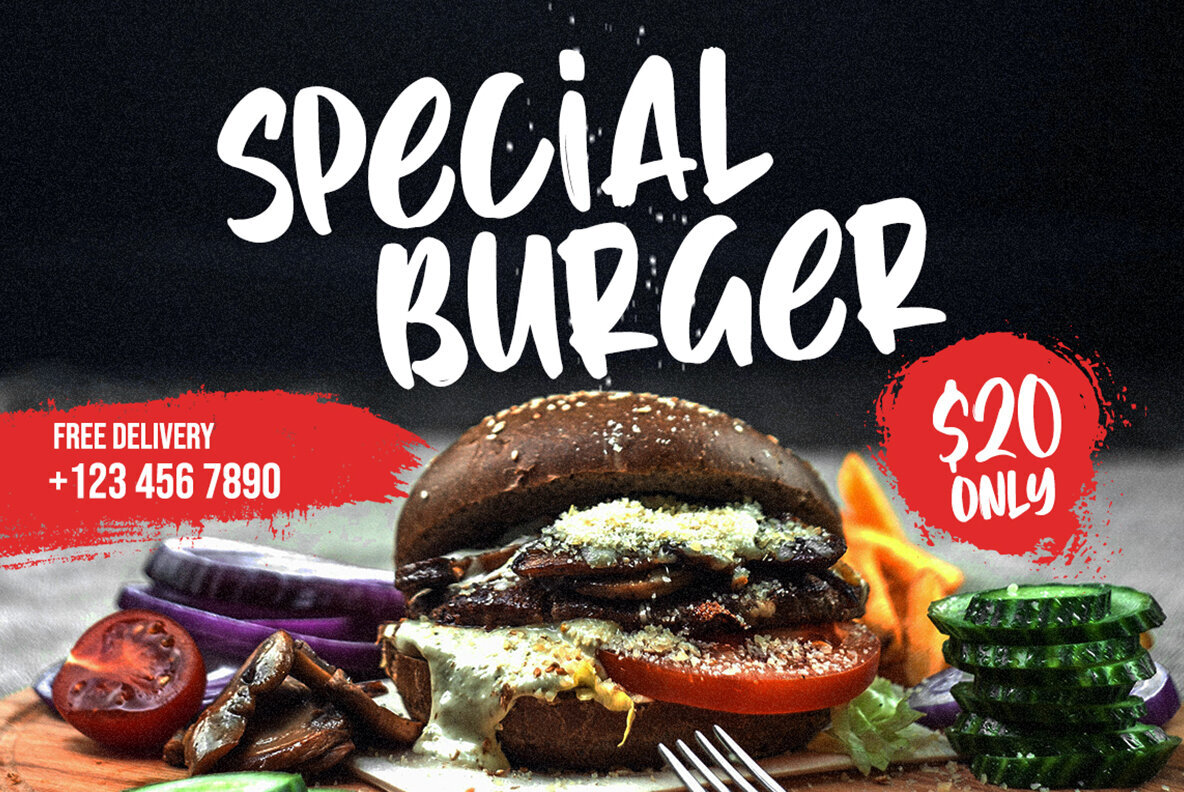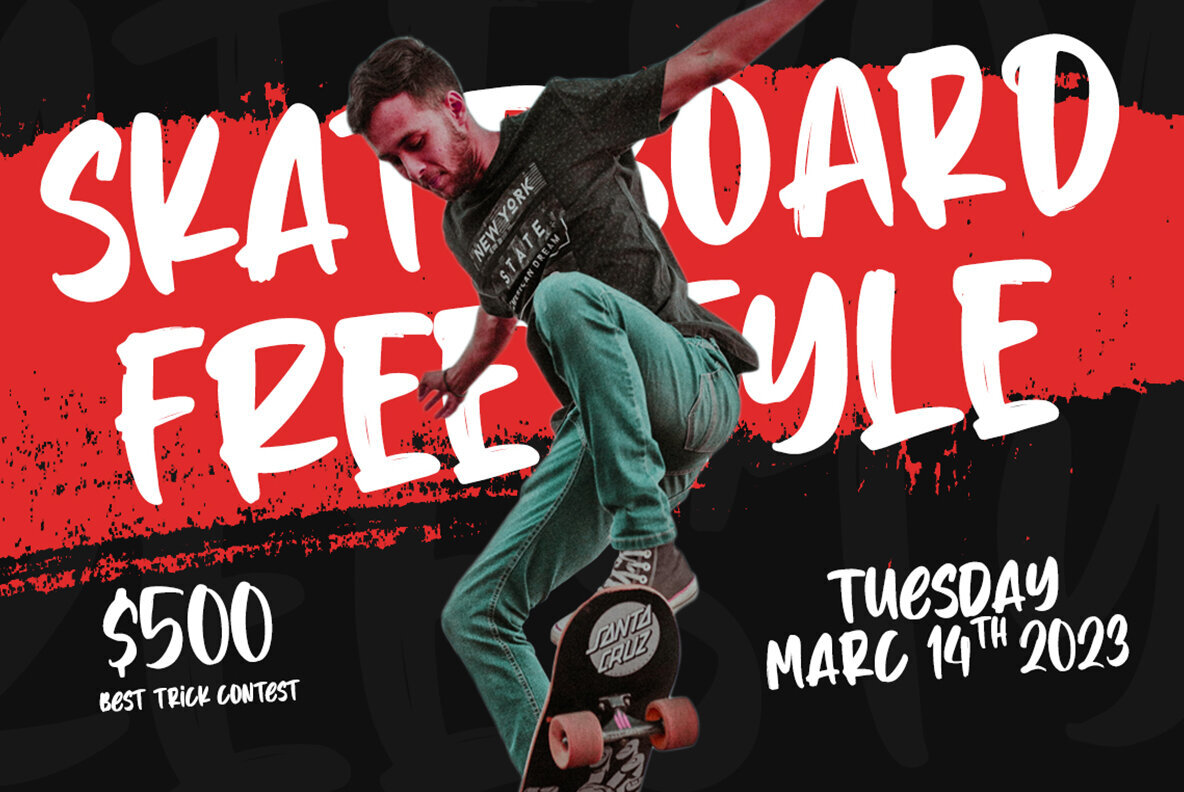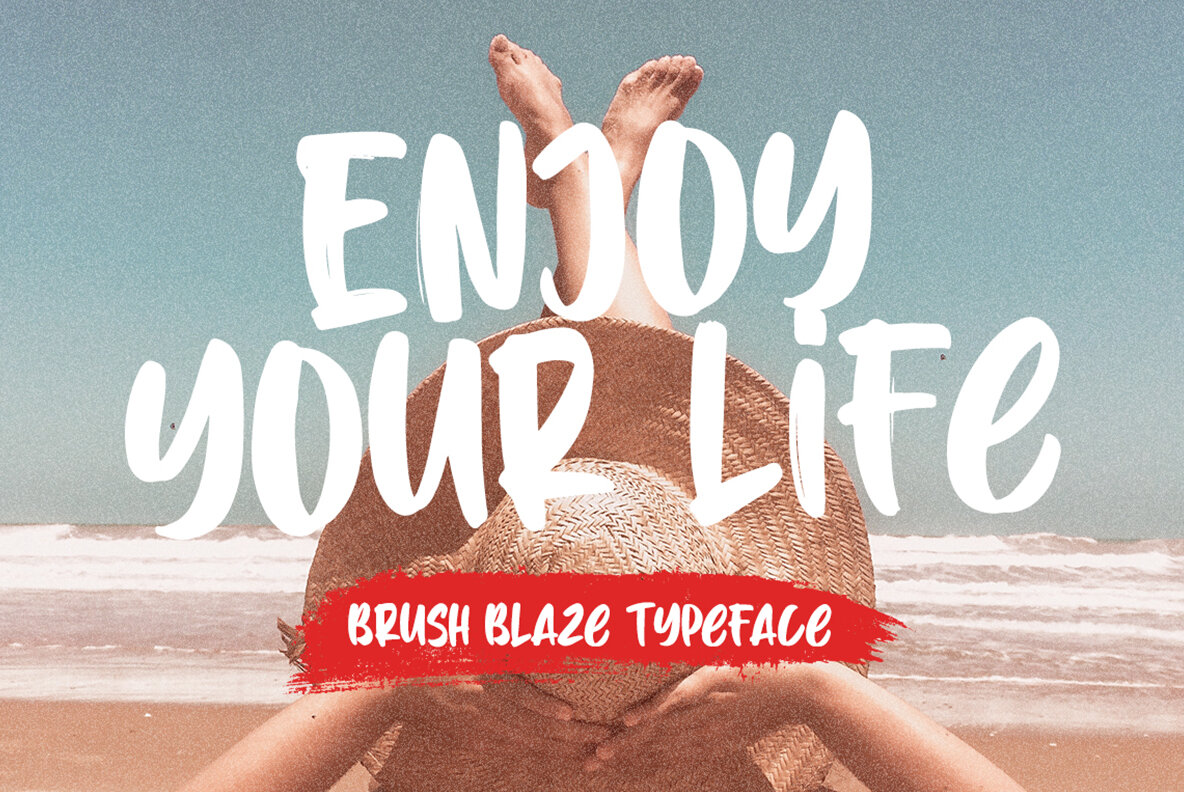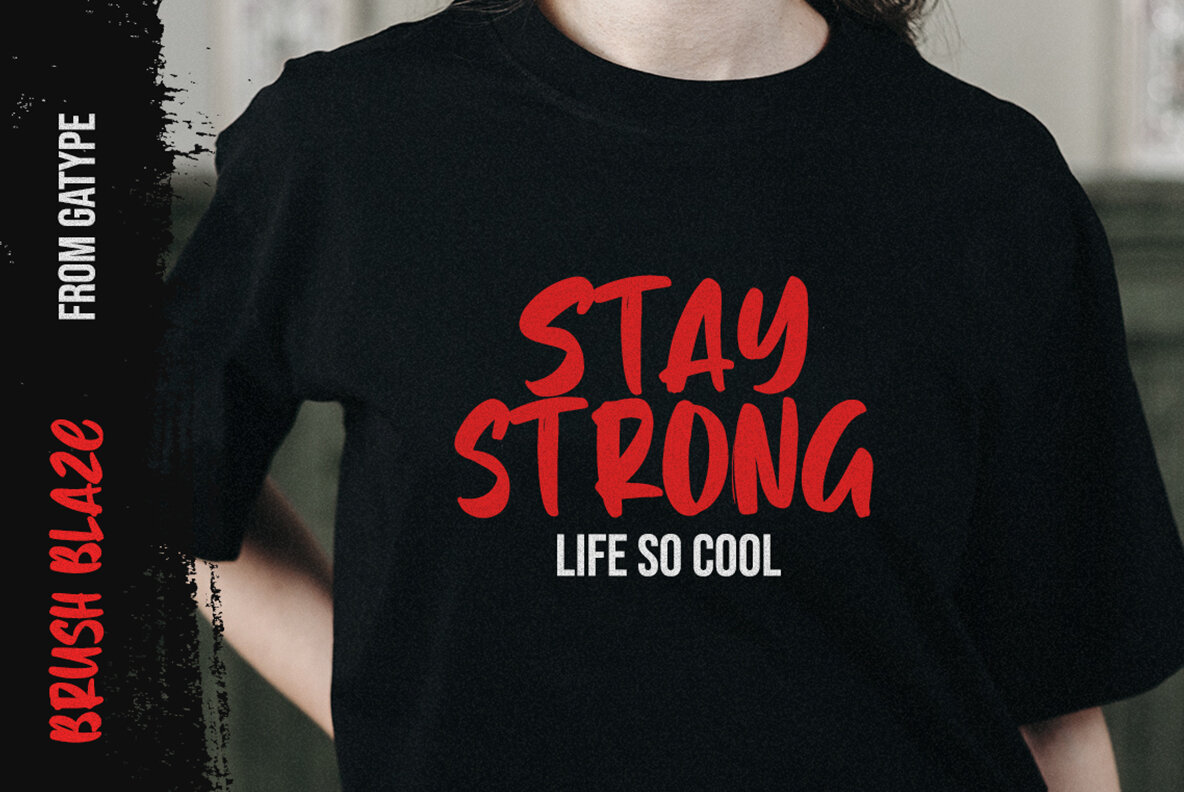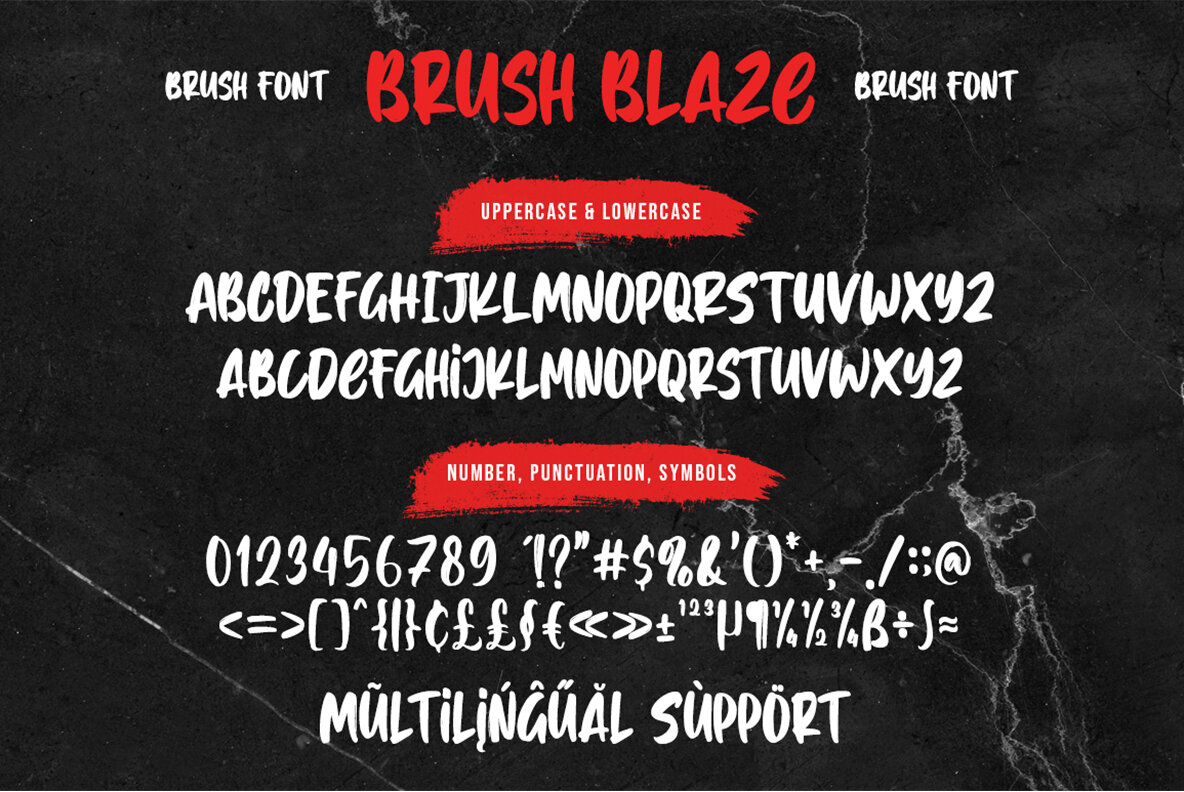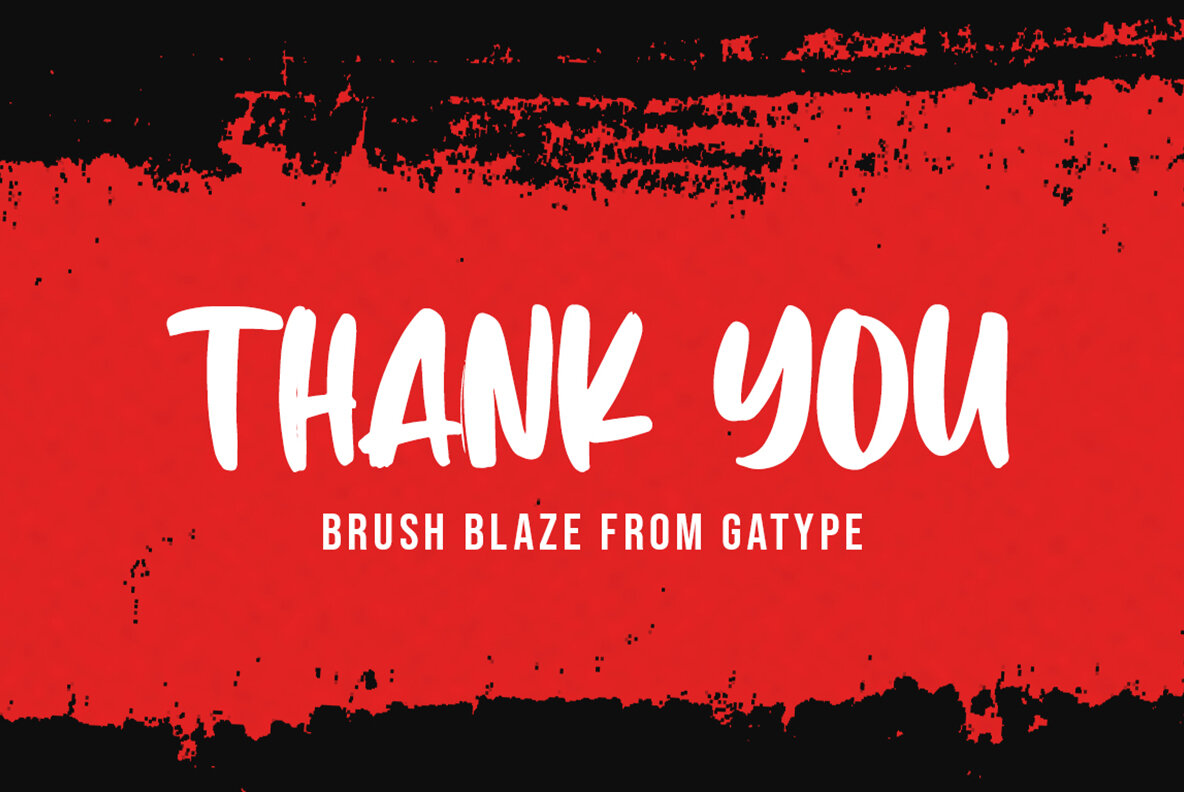
Brush Blaze Font
Brush Blaze
Brush Blaze offers a dynamic and naturally textured appearance, crafted with a brush pen to reflect the nuances of handmade artistry. Its distinct style imbues designs with a personal and authentic touch. Ideal for capturing attention across a variety of design contexts, Brush Blaze excels in adding personality and charm to:Brush Blaze: Expressive Brush Pen Typography